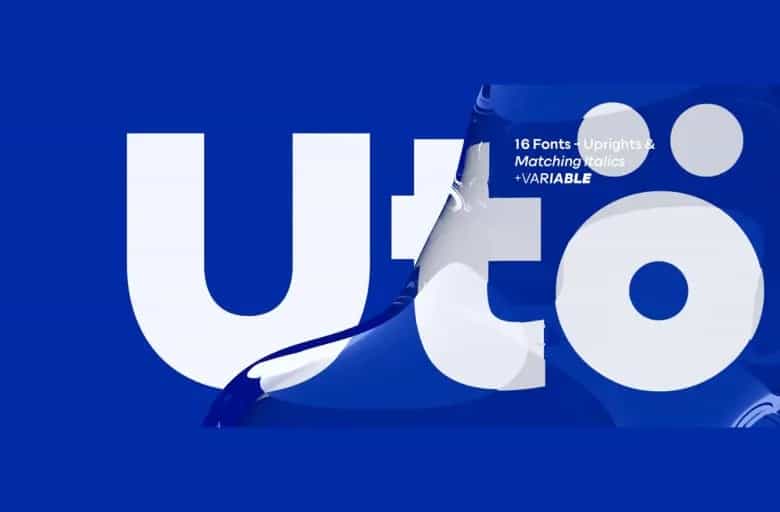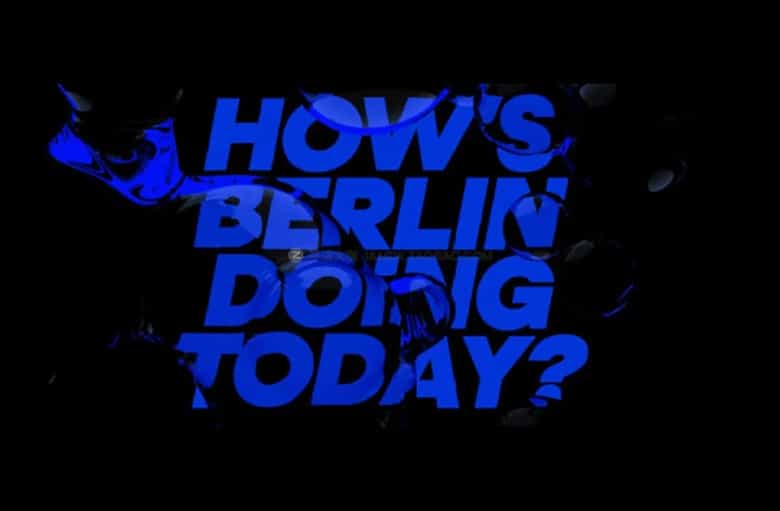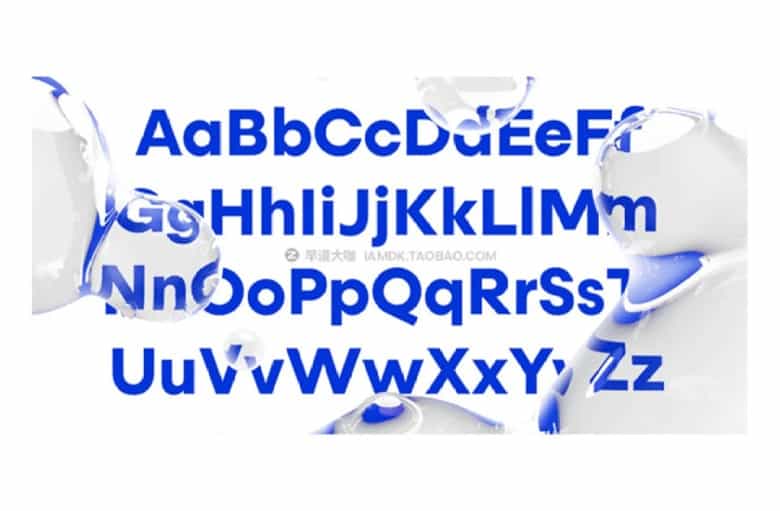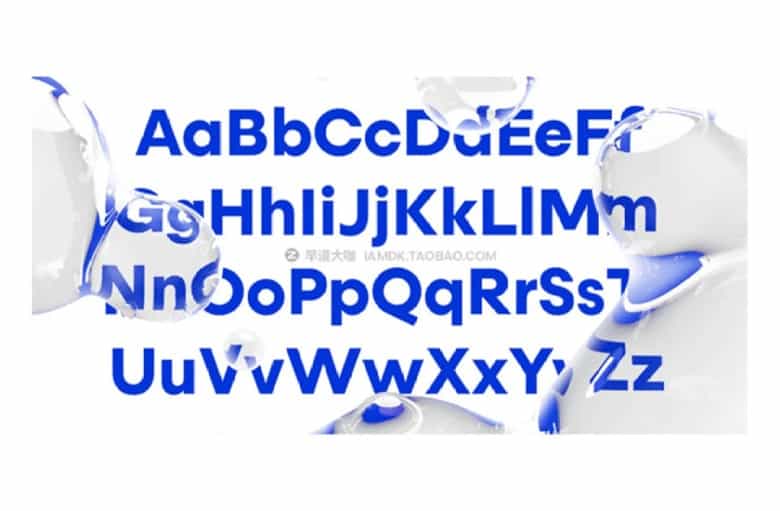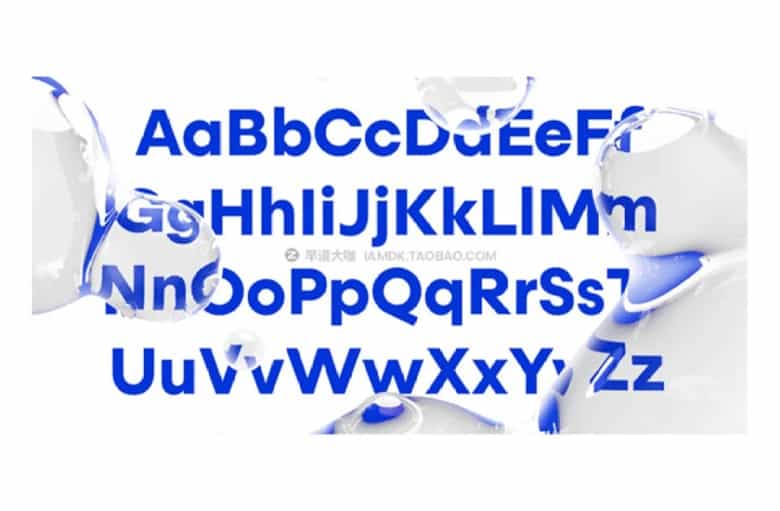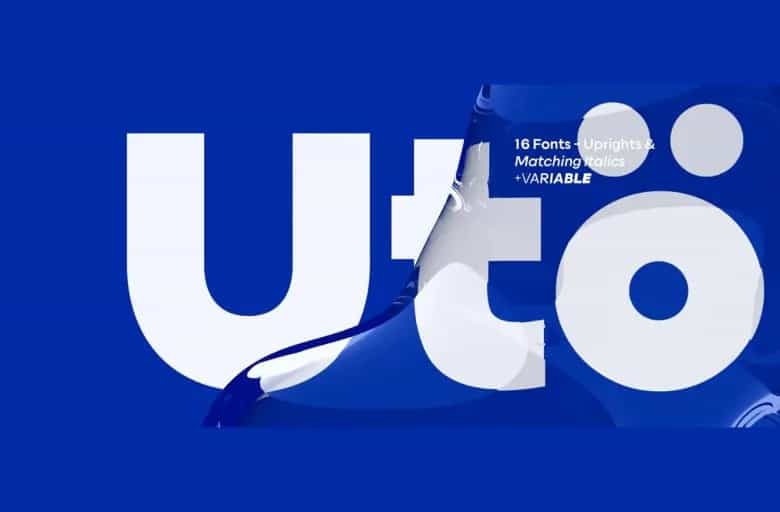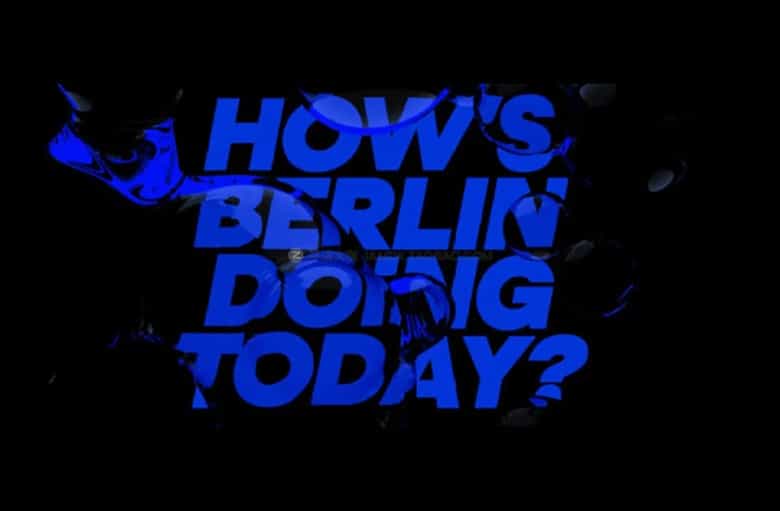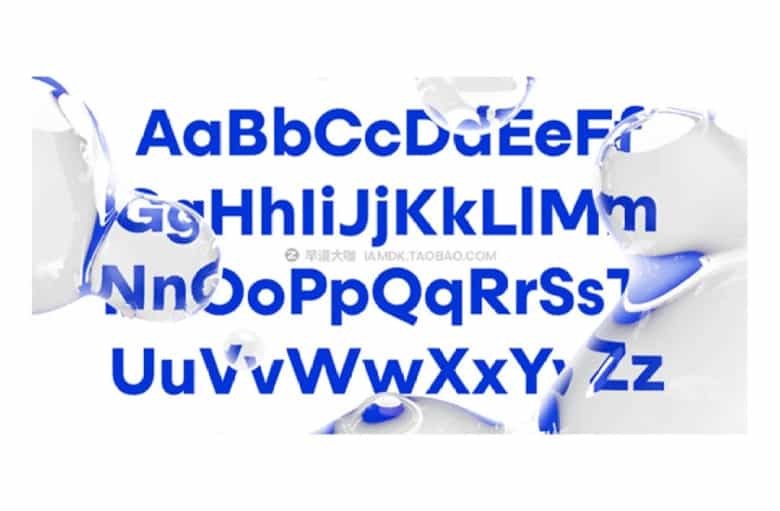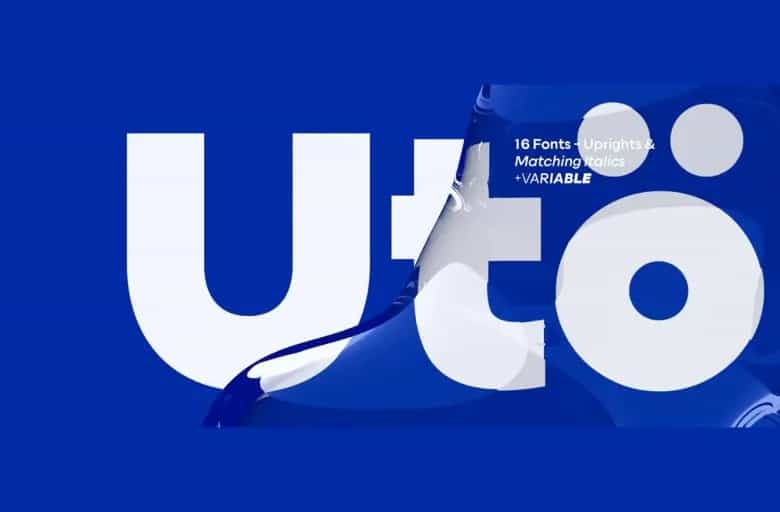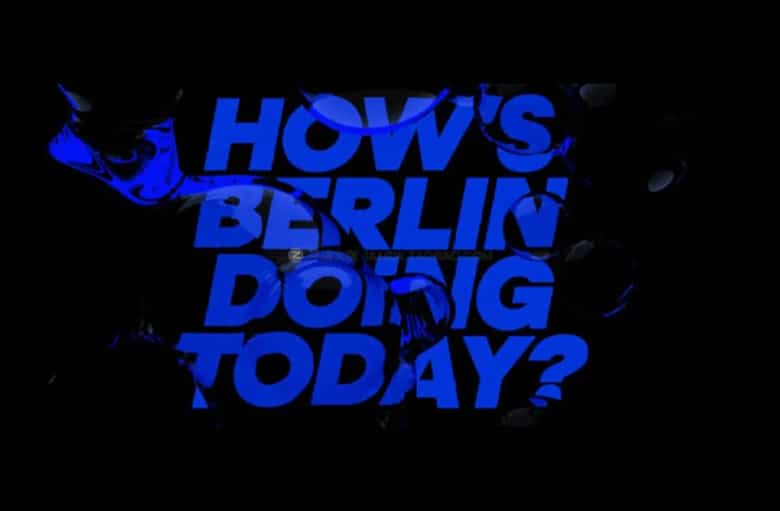
The Uto Font
The name Uto indicates the southernmost tip of the land of Finland, the island of Ut has of Utio, the fundamental simplicity that is almost ascetic. That goes with the font too which is also made of the simplest of forms. The ever-changing nature and its seasons determine some of the ways of life at the outer archipelago.